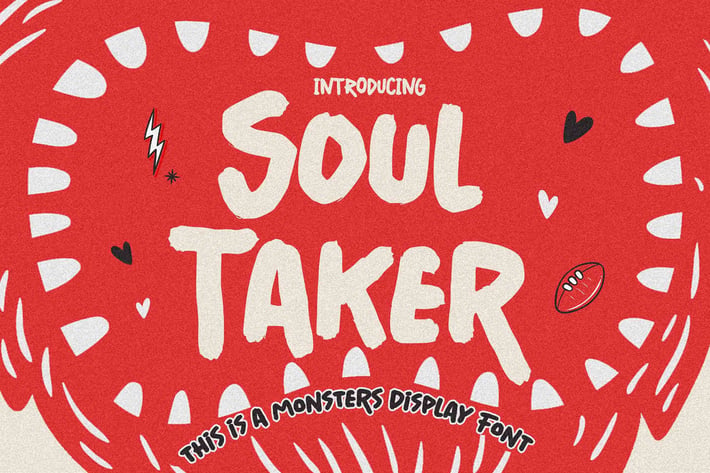
Soul Taker - This is a Monsters Display Font
Hello Everyone, introduce our new product Font Soul Taker This is a Monsters Display Font.This is a Textured Natural Style and classy style with a clear style and dramatic movement.
This font Soul Taker is great for your next creative project such as logos, printed quotes, invitations, cards, product packaging, headers, Logotype, Letterhead, Poster, Design this font is great for your creative projects such as watermark on photography, and perfect for logos & branding, invitation,advertisements,product designs, stationery, wedding designs,label ,product packaging, special events or anything that need handwritting taste.
That is has charming, authentic and relaxed characteristic more natural look to your text.